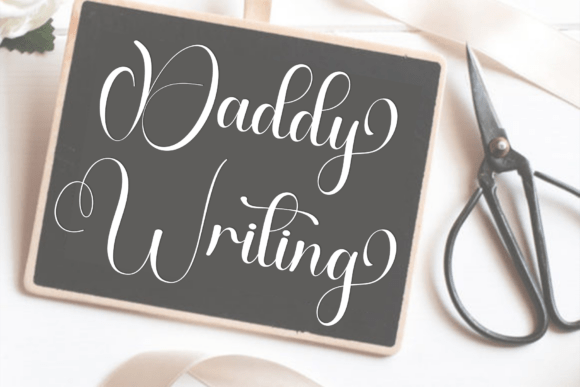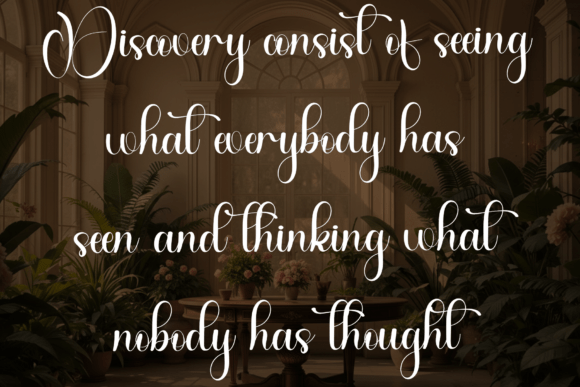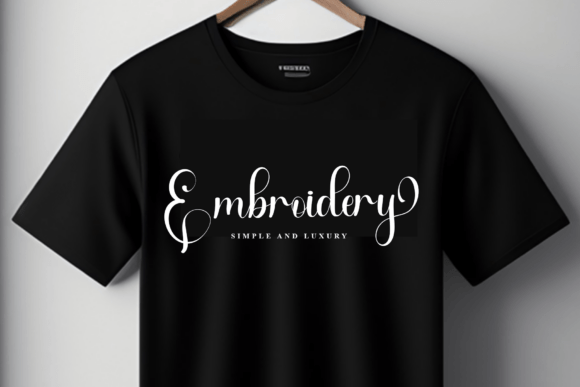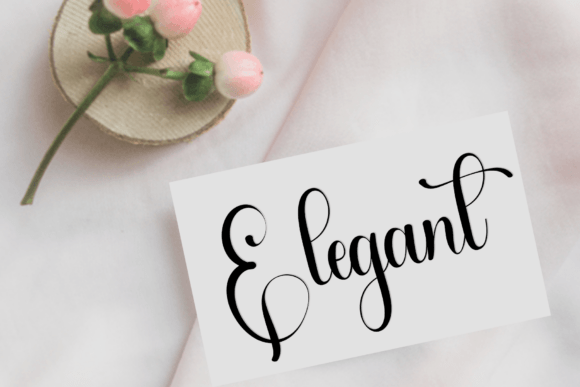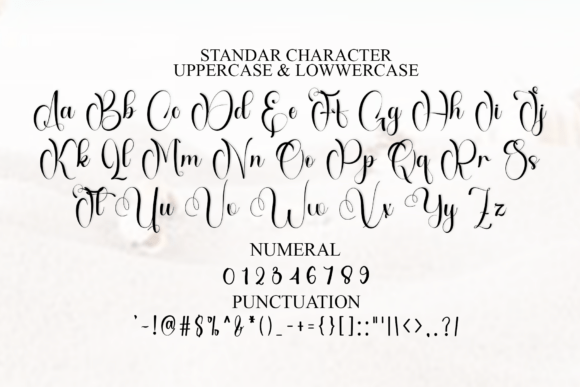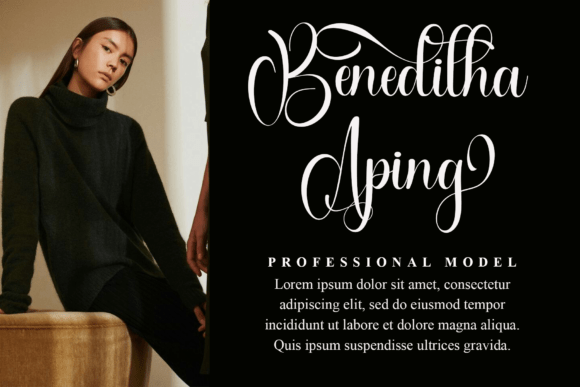
Introducing Barbie Calligraphy Font: The Perfect Blend of Creativity and Friendliness
Are you a designer, crafter, or DIY enthusiast looking for a font that can add a personal touch to your projects? Look no further than the Barbie Calligraphy Font. This casual and creative font is designed to exude warmth and friendliness, making it perfect for a wide range of applications, from personal projects to social media graphics.
The Characteristics of Barbie Calligraphy Font
The Barbie Calligraphy Font is characterized by its round, playful strokes that create a relaxed and approachable feel. The font’s charming, hand-drawn aesthetic adds a fun and unique touch to any design, making it ideal for designers and crafters who want to add a personal touch to their work.
One of the standout features of the Barbie Calligraphy Font is its versatility. Whether you’re creating invitations, social media graphics, or personal projects, this font is sure to make your design stand out. Its casual and creative vibe makes it perfect for a wide range of applications, from wedding invitations to DIY craft projects.
Technical Features of Barbie Calligraphy Font
The font’s PUA encoding also makes it easy to access and use a wide range of glyphs and characters, allowing you to add an extra layer of creativity and customization to your designs. Whether you’re a seasoned designer or a DIY novice, the Barbie Calligraphy Font is easy to use and accessible.
Why Designers and Crafters Love Barbie Calligraphy Font
So, why do designers and crafters love the Barbie Calligraphy Font? For one, its unique and charming aesthetic adds a personal touch to any design. The font’s hand-drawn feel also makes it perfect for creating handmade or DIY-style projects, such as wedding invitations, party decorations, and craft tutorials.
Another reason designers and crafters love the Barbie Calligraphy Font is its versatility. The font can be used for a wide range of applications, from digital designs to print projects. Whether you’re creating social media graphics, blog posts, or marketing materials, this font is sure to make your design stand out.
Tips for Using Barbie Calligraphy Font
Here are a few tips for using the Barbie Calligraphy Font in your designs:
- Use it for personal projects, such as wedding invitations, party decorations, and DIY craft projects.
- Pair it with other fonts to create a unique and eye-catching design.
- Experiment with different colors and textures to add an extra layer of creativity to your design.
- Use it for social media graphics, blog posts, and marketing materials to add a personal touch.
In conclusion, the Barbie Calligraphy Font is a versatile and creative font that is perfect for designers, crafters, and DIY enthusiasts. Its charming, hand-drawn aesthetic and casual vibe make it ideal for a wide range of applications, from personal projects to social media graphics.